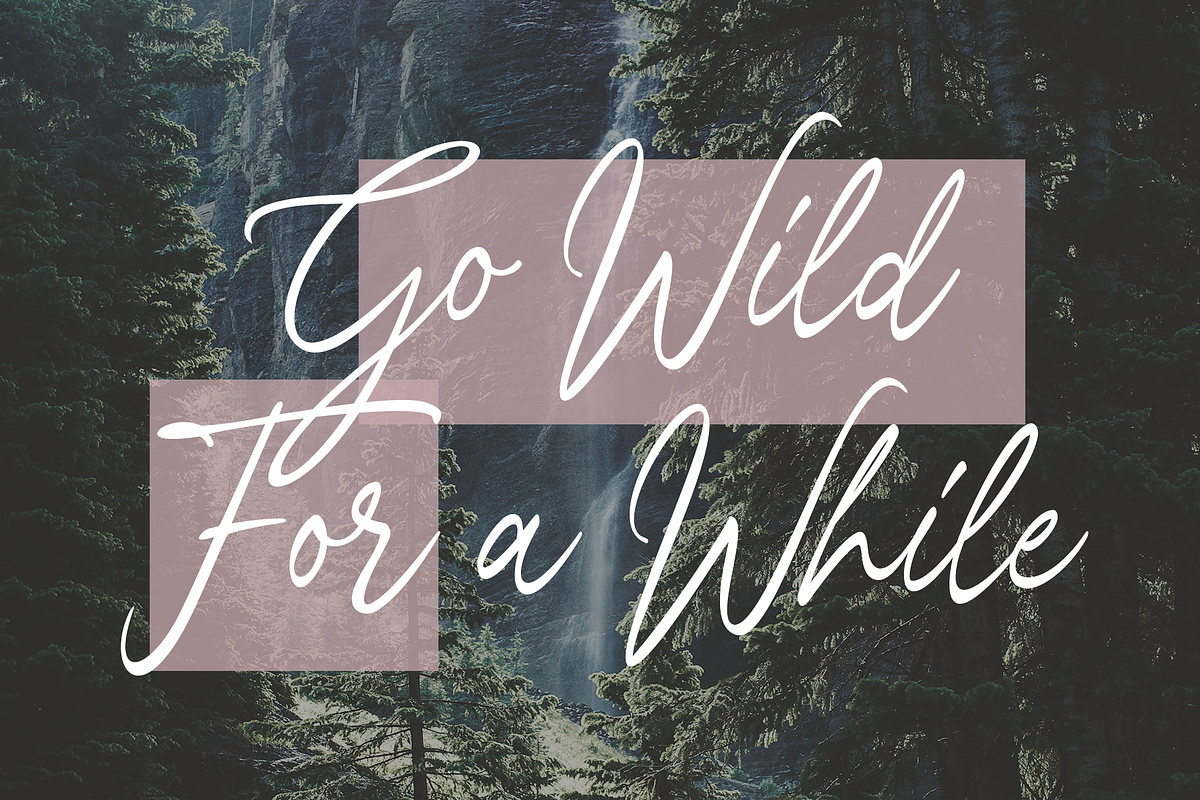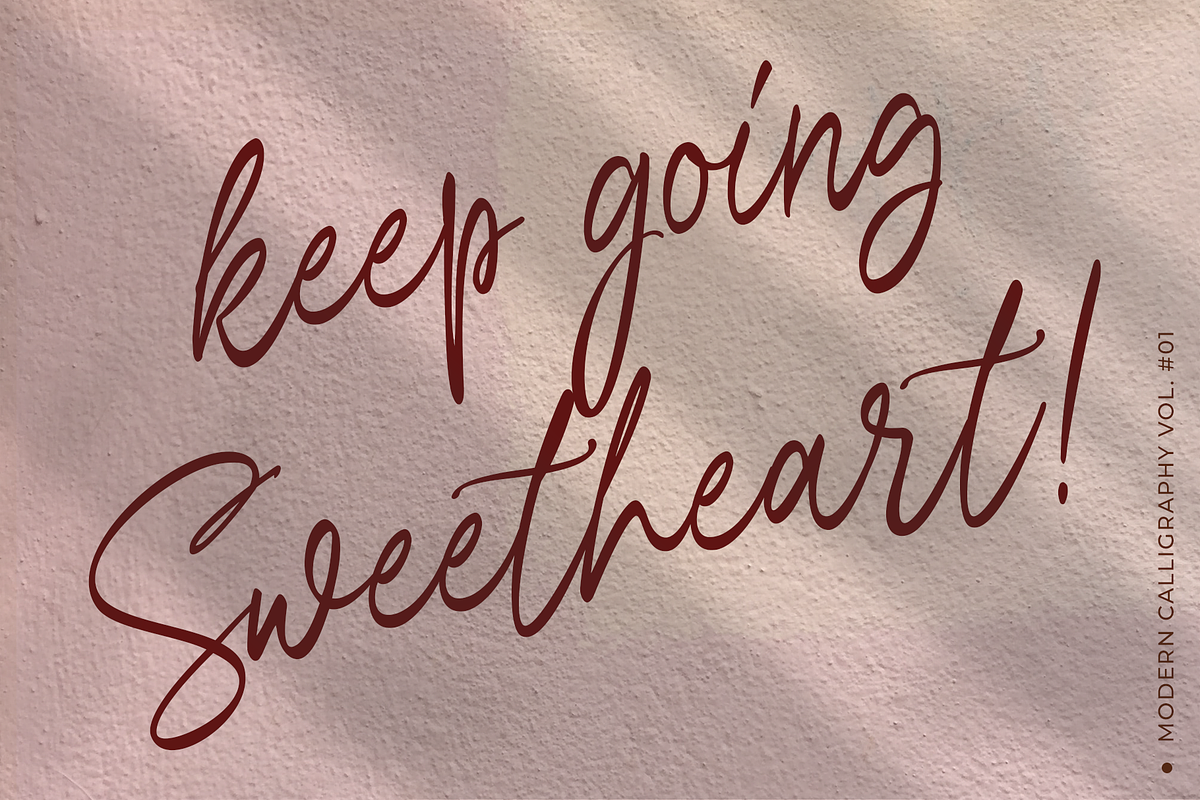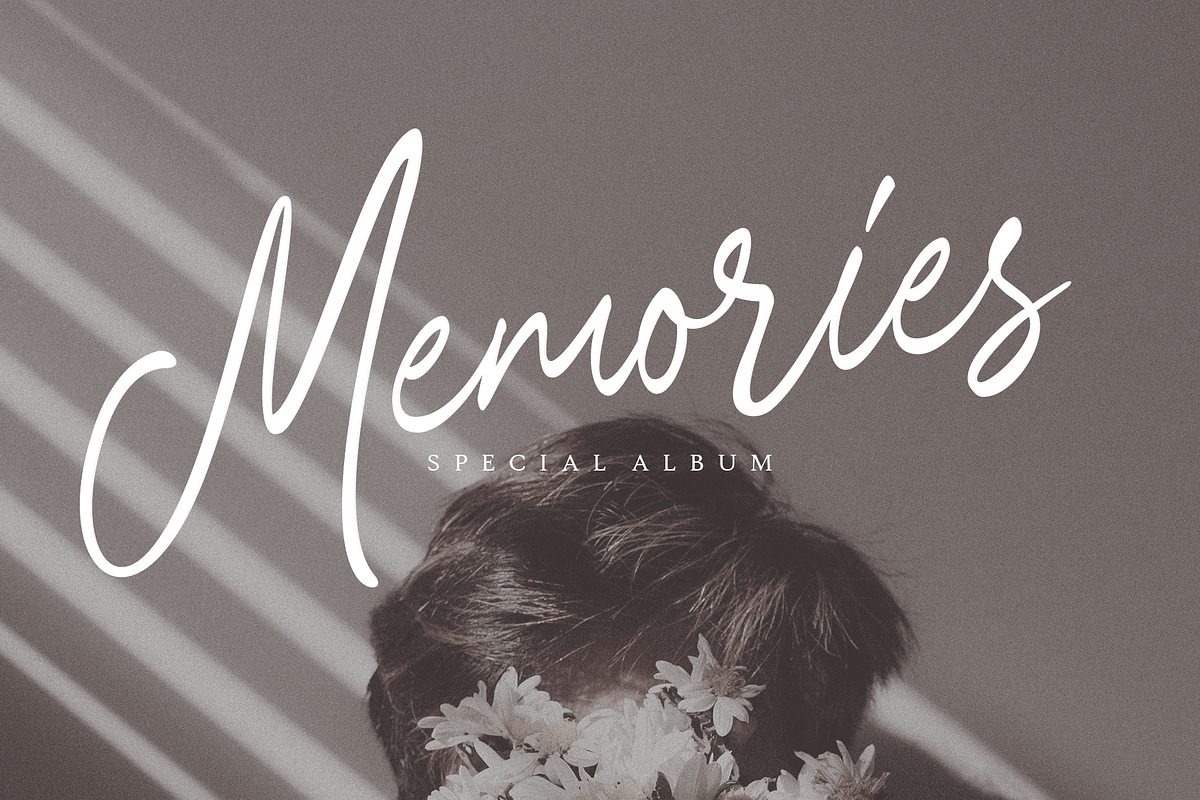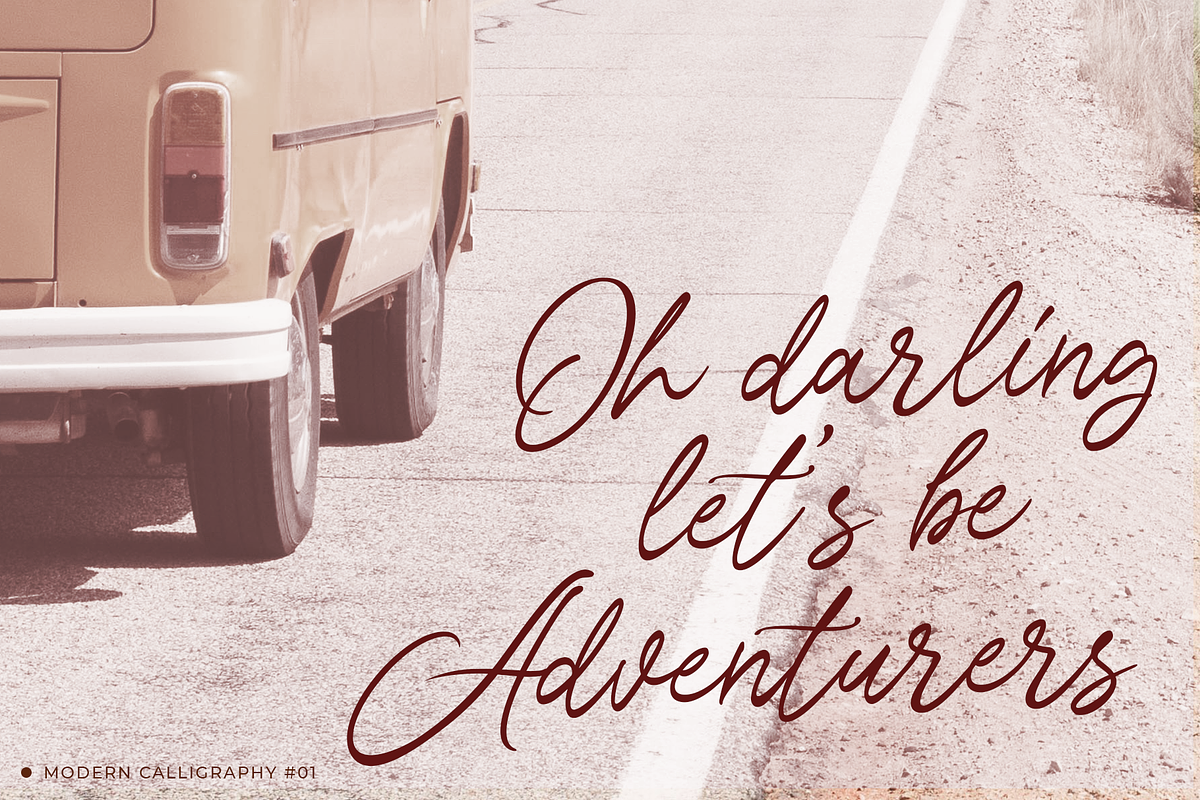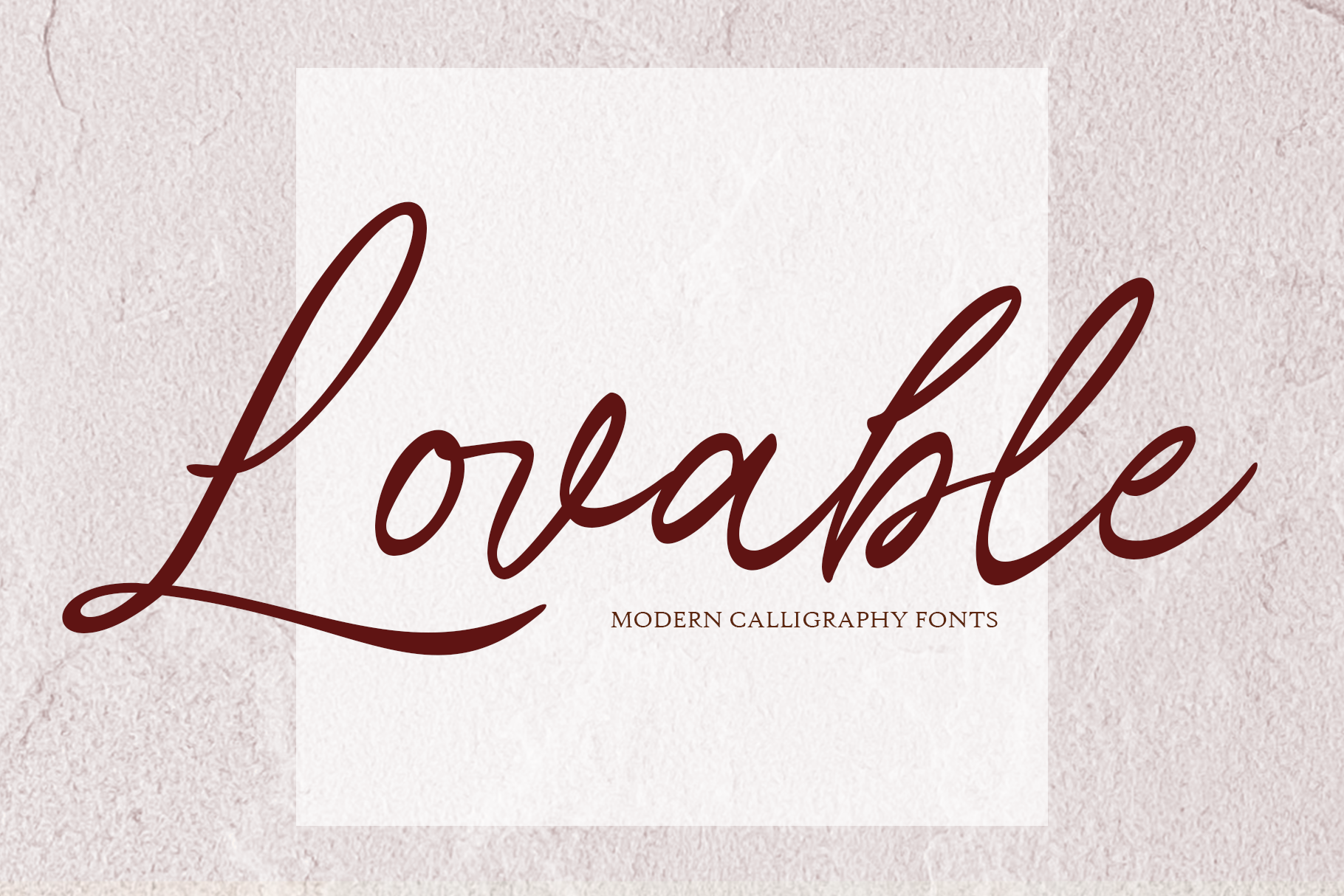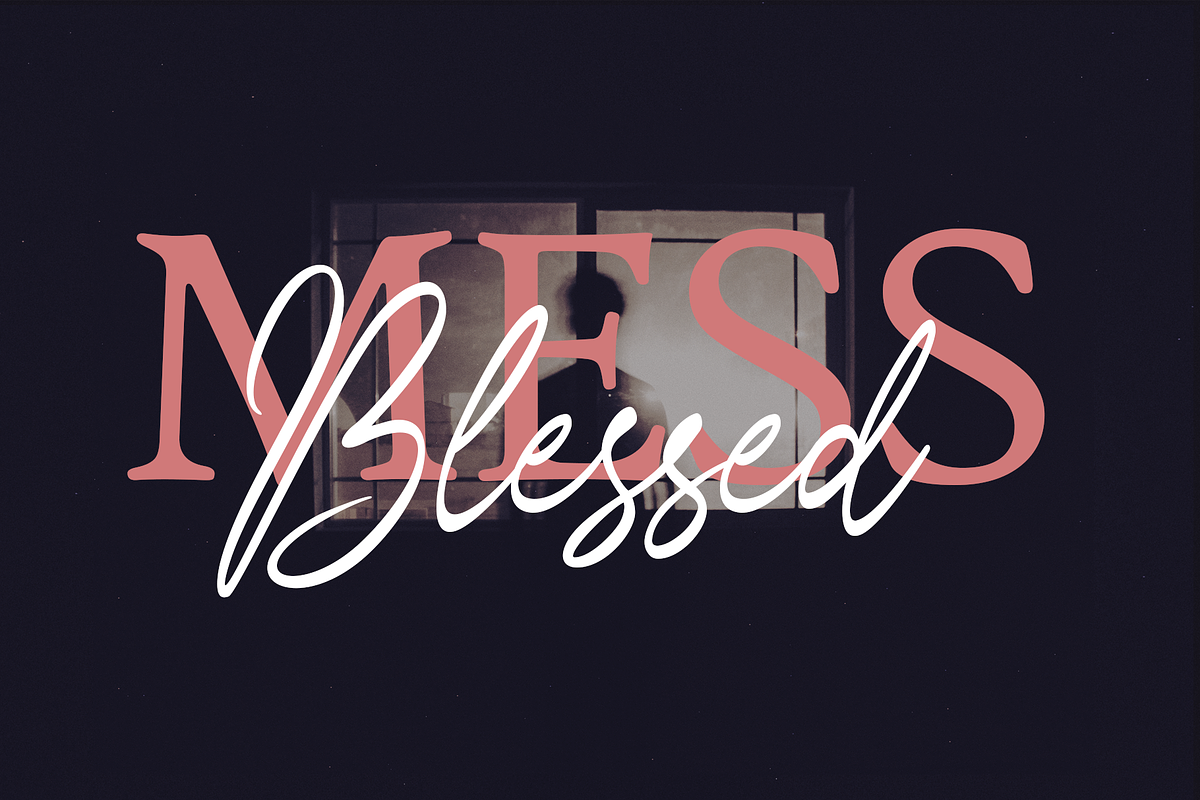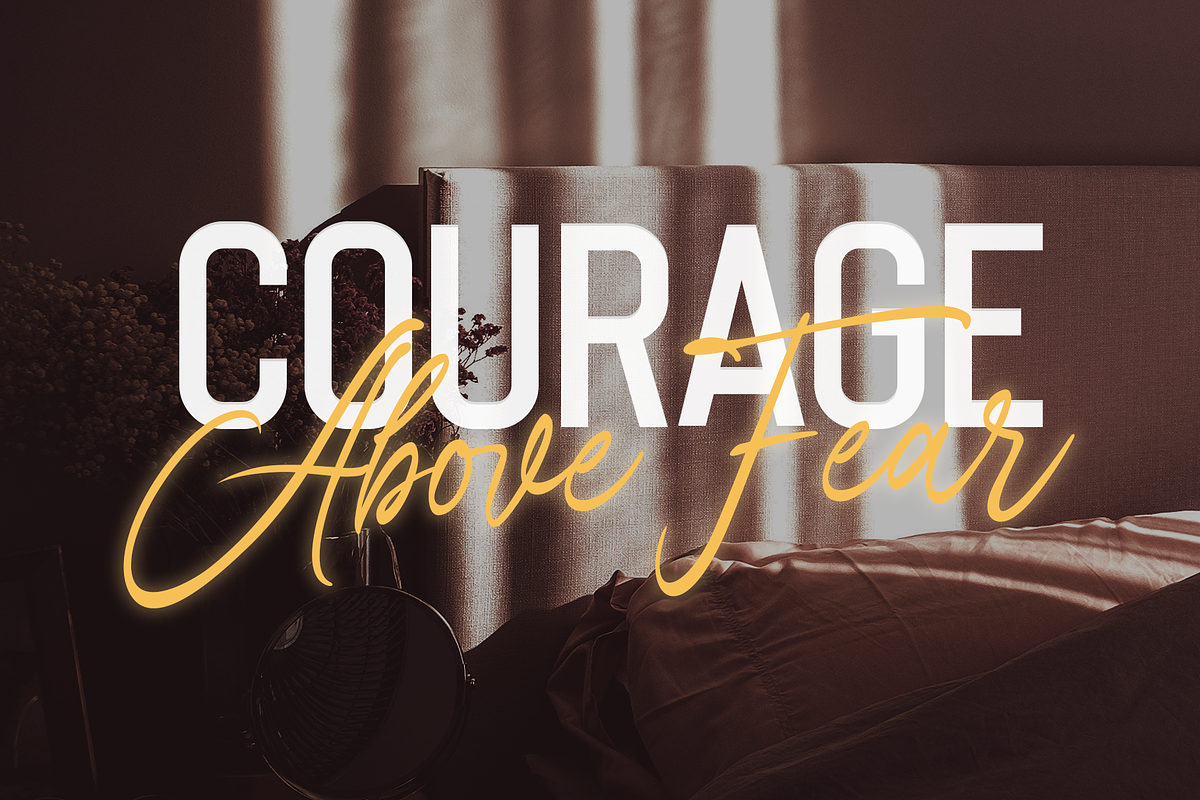
Lovable Script Fonts
Modern Calligraphy script fonts with luxury & casual style, perfect for branding and your important projects.
Lovable Script Fonts has free flow strokee to your luxury design projects. Versatile enough to make gorgeous typography and elegant touch.
Lovable Script Fonts is inspired by casual beauty with great personalities. Once you using them, it could be as powerful and amazing as your personality. We got your back and you got our 100% support!